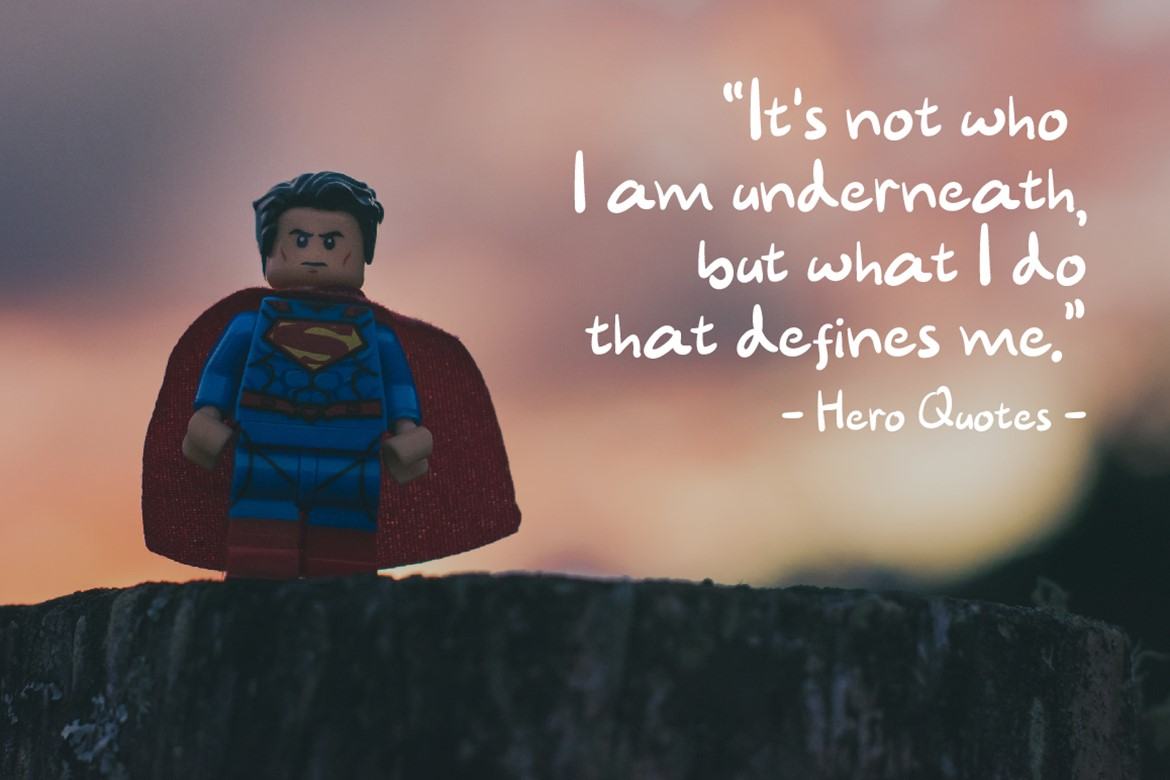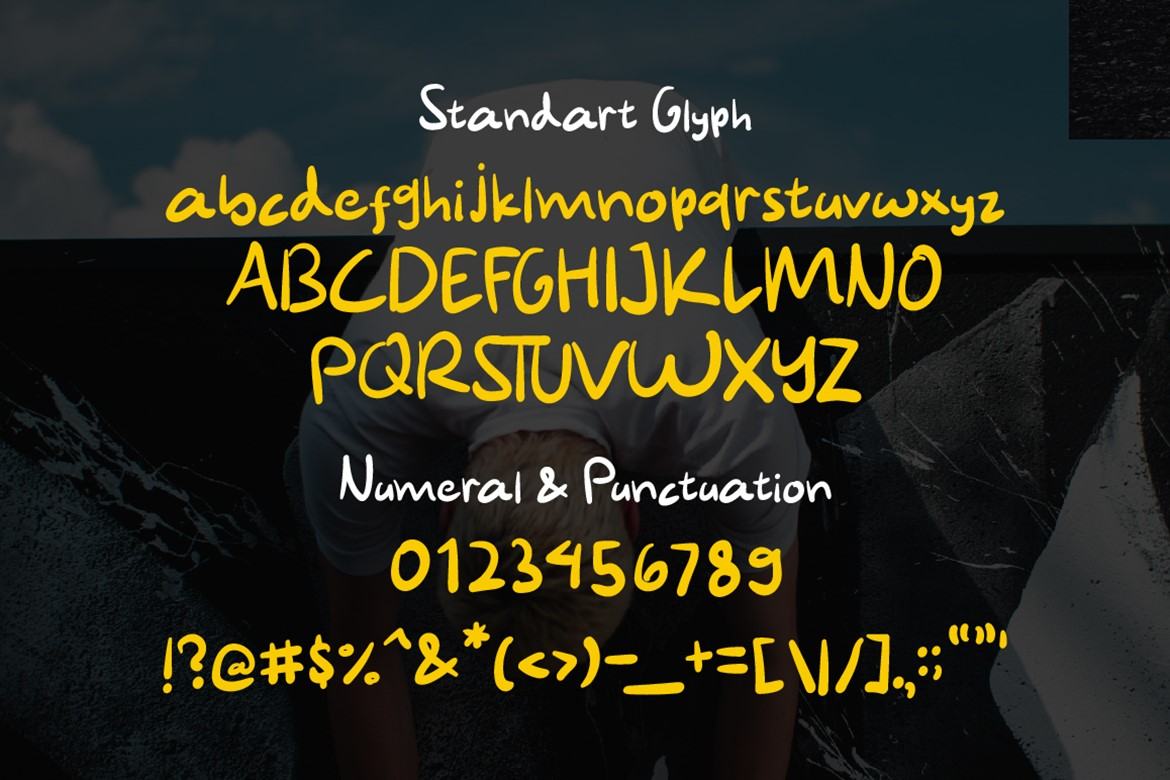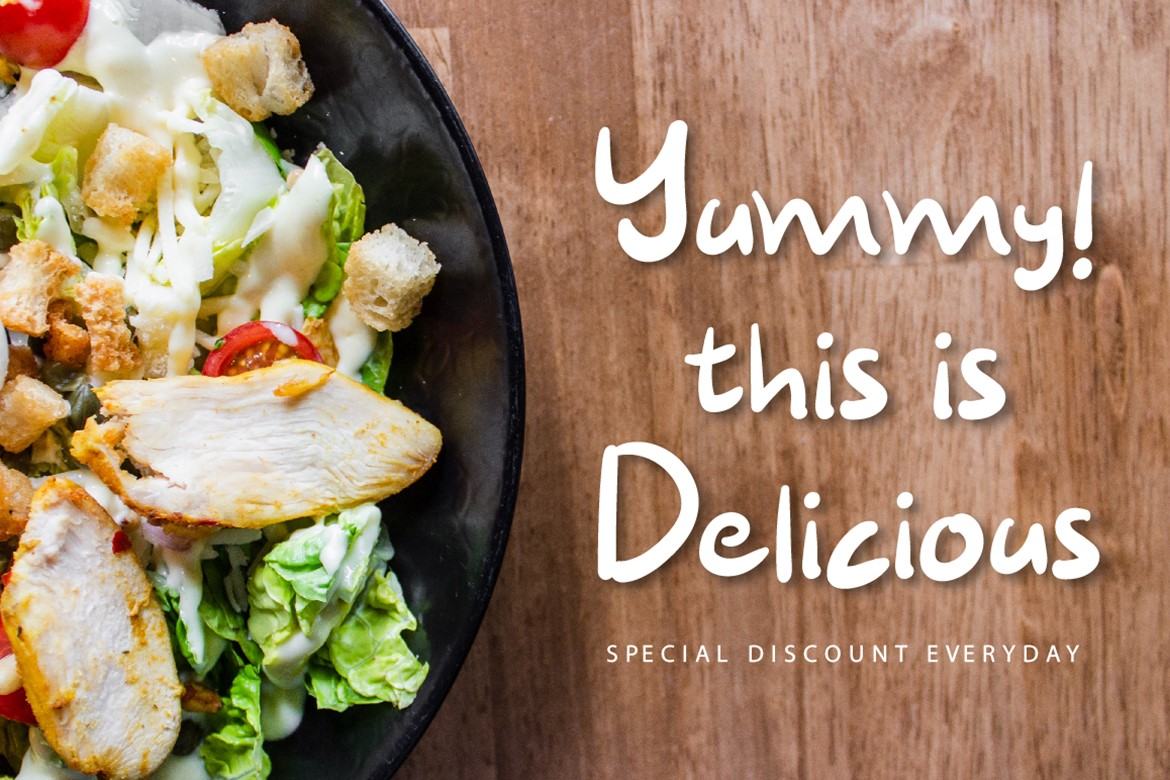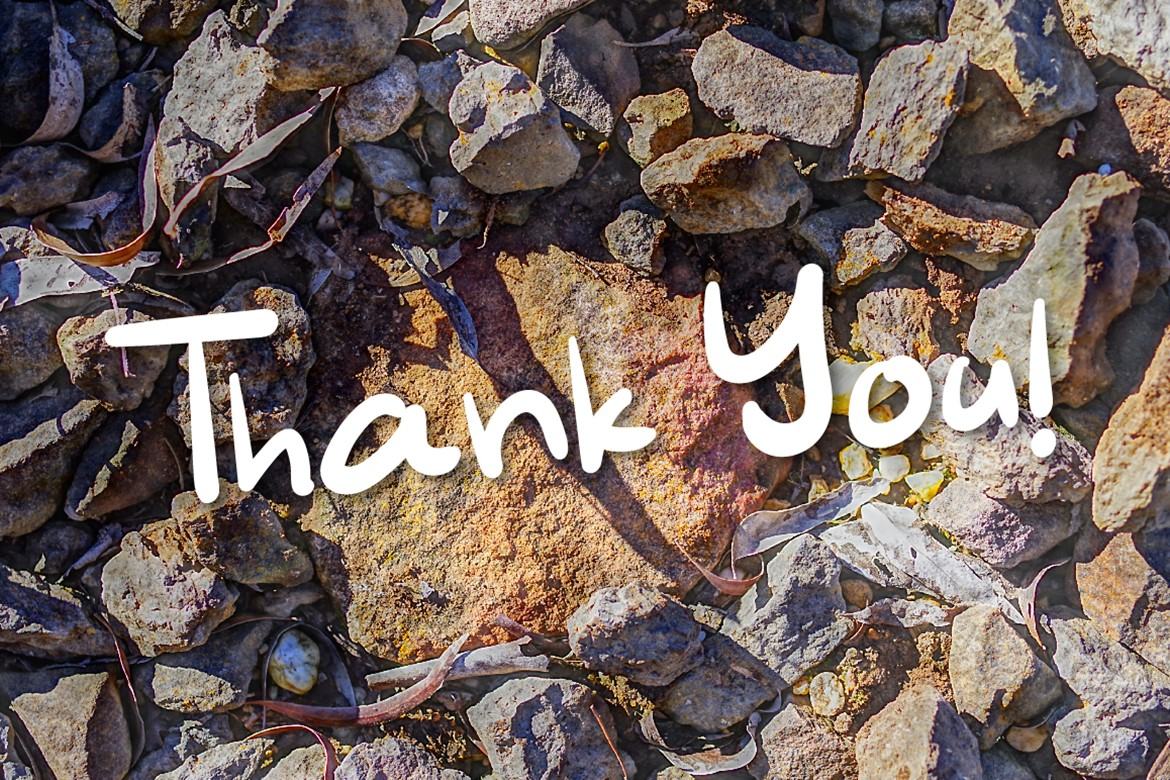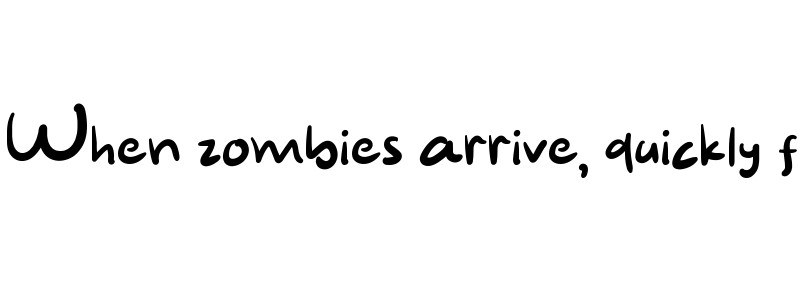
Awkward Free Handwriting Typeface
Awkward
Awkward Handwriting Font. This is beautiful and easy to read handwritte font.. This font have smooth curves and lines, while maintaining the flair of brush script handwriting.
Awkward Handwriting Font is perfect for branding projects, logo, wedding designs, social media posts, advertisements, product packaging, product designs, label, photography, watermark, invitation, stationery and any projects that need handwriting taste.